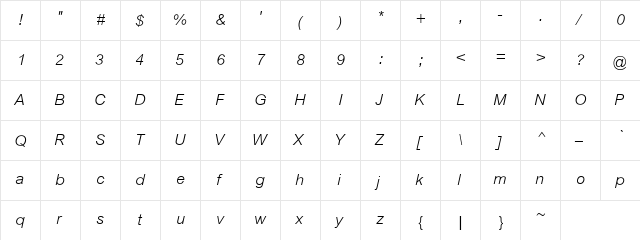
CordiaUPC Italic
Design Context for CordiaUPC Typeface
CordiaUPC takes a measured approach to typography — its balanced proportions and neutral character make it a reliable workhorse for both digital and print work. The dynamic lean of this cut emphasises speed and emphasis in any layout.
Pro Tip: Try CordiaUPC for annotation and caption copy alongside an upright companion — the contrast in angle creates a dynamic but ordered typographic system.